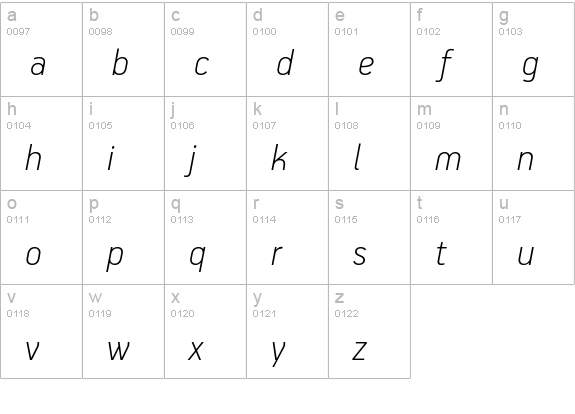
PFHandbookPro-ThinItalic is a sleek and elegant font designed for sophisticated and modern designs. With its thin and italic style, this font exudes a sense of grace and refinement, making it perfect for adding a touch of sophistication to any project. The delicate curves and subtle angles of PFHandbookPro-ThinItalic create a sense of movement and fluidity, making it a versatile choice for a wide range of design applications. What sets PFHandbookPro-ThinItalic apart is not only its stylish design, but also the fact that it is available for free download at FontsMarket.com. This means that you can easily access this beautiful font and elevate your designs without any cost involved. Whether you are working on branding materials, web design, or any other project that requires a touch of elegance, PFHandbookPro-ThinItalic is a fantastic choice that won't break the bank. Download it today and see how it can enhance your creative projects!